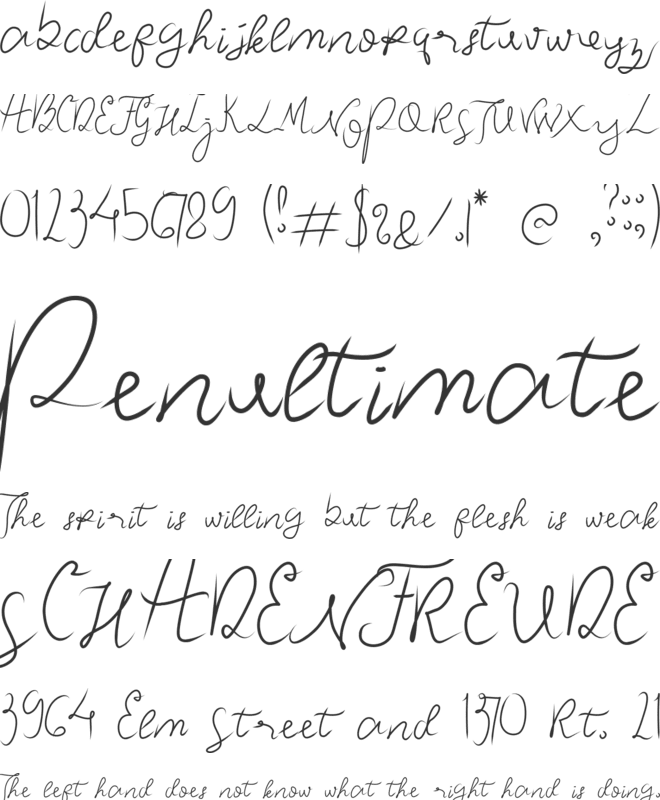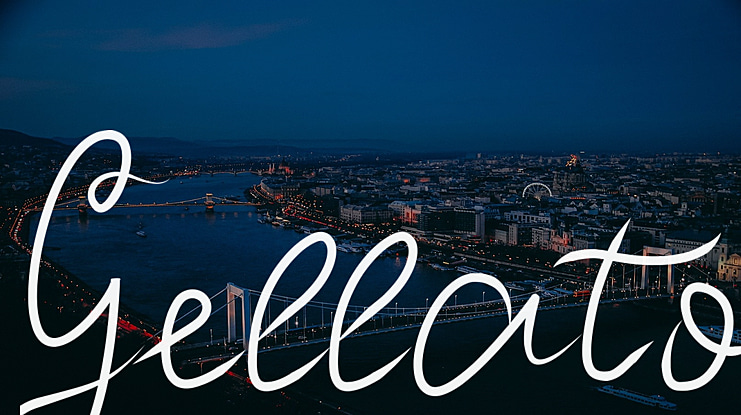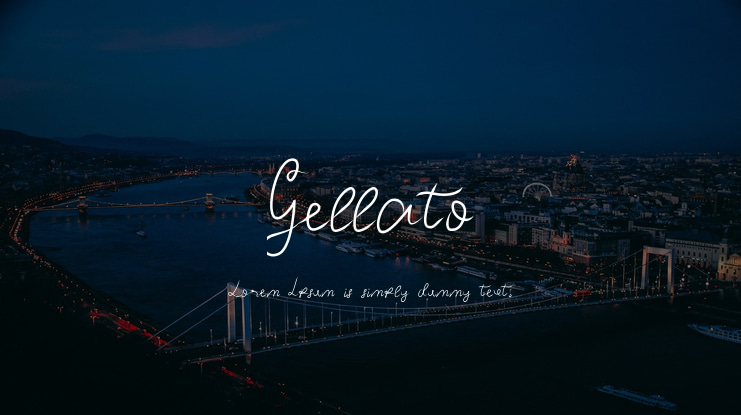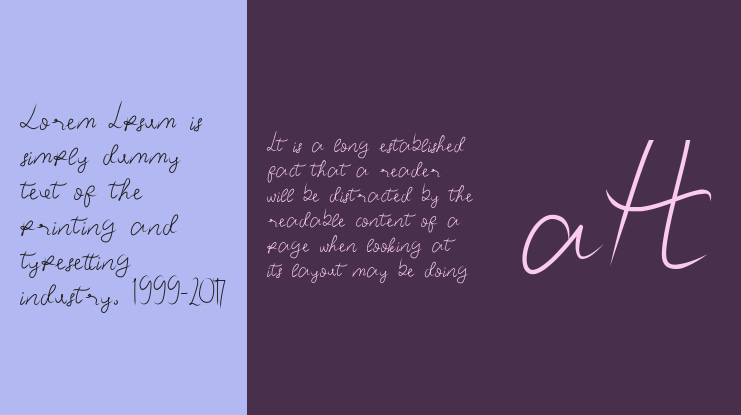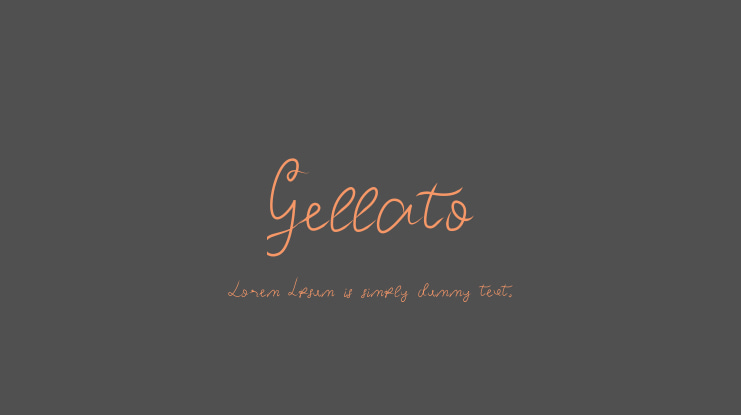
Gellato Font
Gellato is sweetly inspired by the popular frozen desert from Italy and the gorgeous curve of the typeface followed the shape of an ice cream filling the cone. This script font surely will give an authentic and sweet touch for both your formal and non-formal design.
Gellato Font is suitable for variety of branding projects, logos, parties and events, social media posts, advertisements, and so much more. Get ready to serve your designs with this finger lickin' good font! Gellato is an authentic script font that suitable for variety o branding projects, logos, social media post, advertisement, and much more!